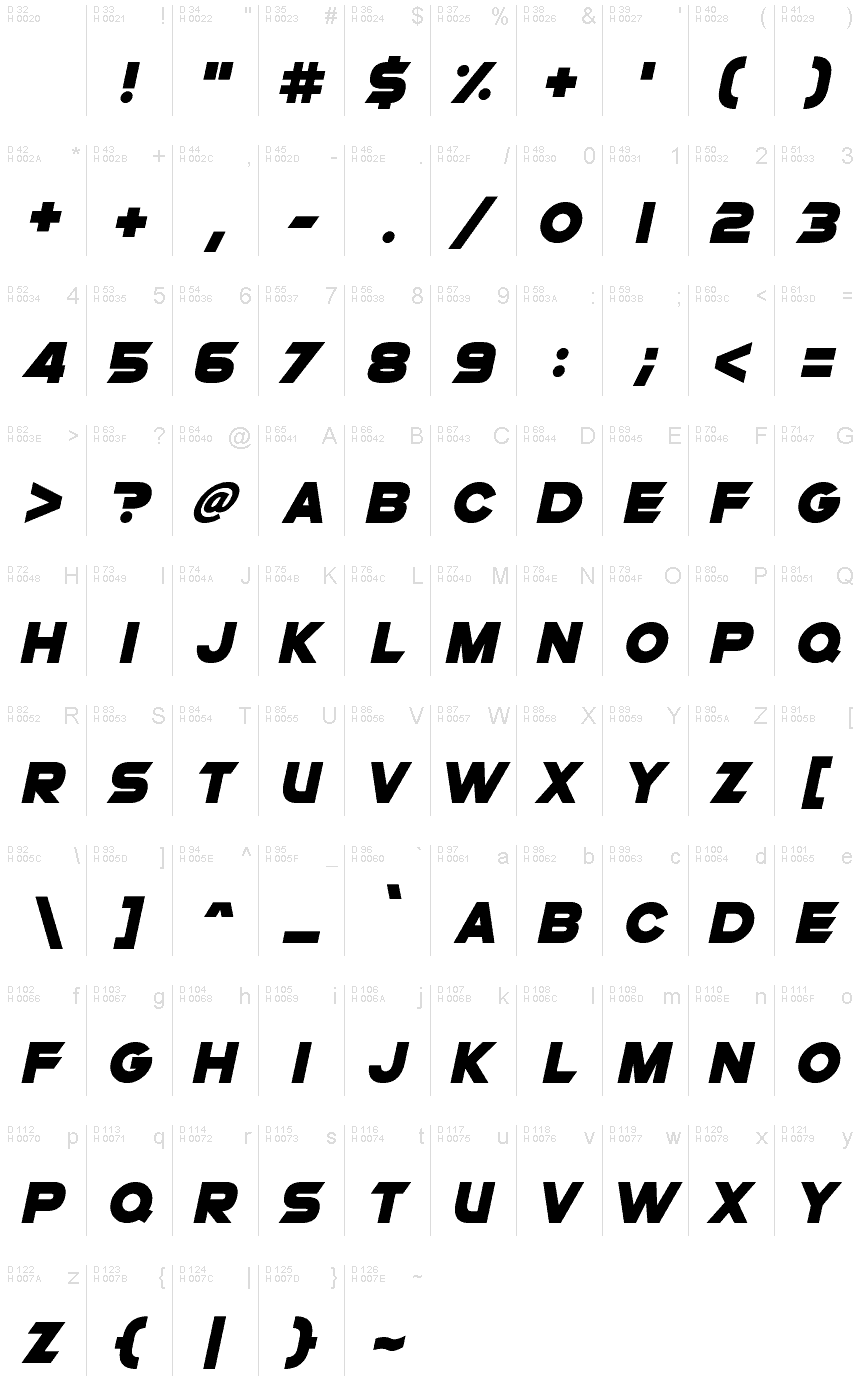
Future Edge Italic
Future Edge Italic font is a bold and futuristic techno display font by Darrell Flood. Its strong presence, sharp contours, and modern aesthetic are clearly visible even on the first glance at it. Be prepared for technological vibes since they accompany the characters alongside an angular style. Any text written using this typeface can only be defined as having a unique futuristic touch.